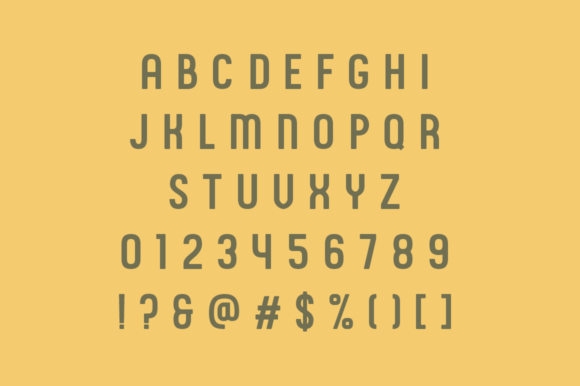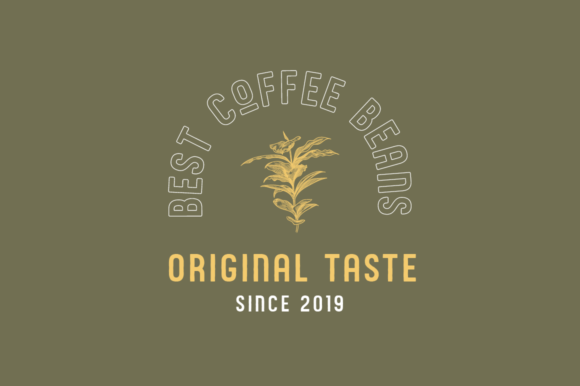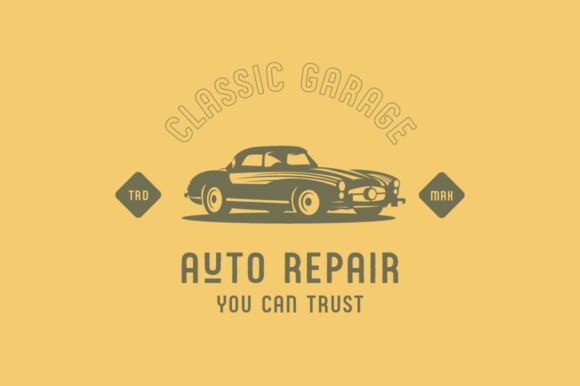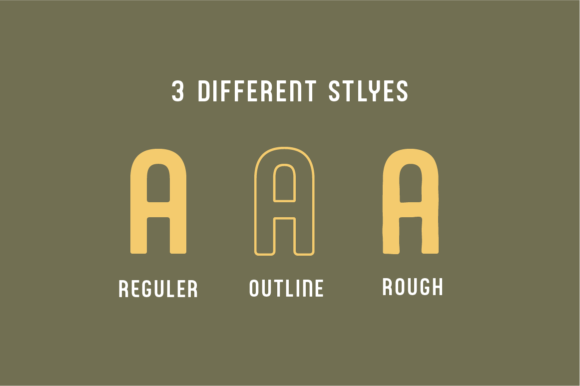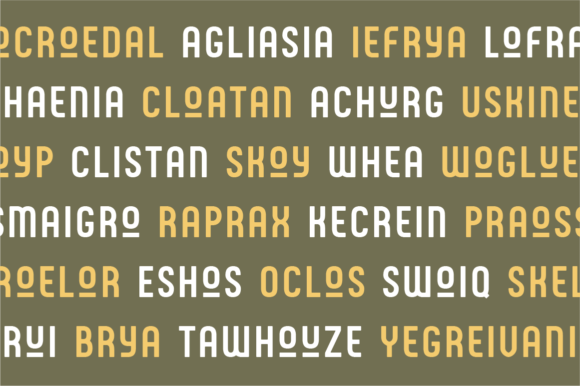
Godiva Font: Elevate Your Designs with a Cool, Bold, and Vintage Flair
Are you on the hunt for a font that adds a touch of sophistication, elegance, and a dash of vintage charm to your designs? Look no further than the Godiva Font. This cool, bold, and vintage-styled display font is making waves in the design community, and for good reason. In this article, we’ll dive into the world of Godiva Font, exploring its unique characteristics, uses, and why it’s becoming a favorite among designers and crafters alike.
The Essence of Godiva Font
Godiva Font is a display font that exudes a sense of luxury, glamour, and nostalgia. Its bold and vintage styling makes it perfect for projects that require a statement piece. Whether you’re working on a branding project, a packaging design, or a marketing campaign, Godiva Font is sure to turn heads. Its unique blend of classic and modern elements creates a distinctive look that’s both eye-catching and memorable.
Key Features of Godiva Font
- Bold and Vintage Styling: Godiva Font boasts a bold and vintage aesthetic that’s reminiscent of classic typography.
- Highly Legible: Despite its bold styling, Godiva Font remains highly legible, making it perfect for use in a variety of design applications.
- Versatile: Godiva Font can be used in a range of design projects, from branding and packaging to advertising and marketing materials.
- Easily Customizable: Godiva Font is easy to customize, allowing designers to tailor it to their specific needs.
Why Designers and Crafters Love Godiva Font
So, why is Godiva Font becoming a favorite among designers and crafters? For starters, its unique blend of bold and vintage styling makes it a standout in any design project. Additionally, its high legibility ensures that it can be used in a variety of applications, from large-scale signage to smaller promotional materials. Perhaps most importantly, Godiva Font is incredibly versatile, making it easy to incorporate into a wide range of design styles.
Using Godiva Font in Your Designs
Godiva Font can be used in a variety of design applications, including:
- Branding and Logo Design: Godiva Font is perfect for creating bold and eye-catching logos that make a statement.
- Packaging Design: Add a touch of vintage glamour to your packaging designs with Godiva Font.
- Advertising and Marketing Materials: Use Godiva Font to create bold and attention-grabbing ads and promotional materials.
- Signage and Display: Godiva Font is perfect for use in large-scale signage and display applications.
Tips for Getting the Most Out of Godiva Font
To get the most out of Godiva Font, here are a few tips to keep in mind:
- Experiment with Different Sizes: Godiva Font looks great in a variety of sizes, from large-scale display applications to smaller promotional materials.
- Pair it with Other Fonts: Godiva Font pairs well with a range of other fonts, making it easy to create visually interesting and dynamic designs.
- Customize it to Fit Your Needs: Don’t be afraid to experiment with different colors, textures, and effects to make Godiva Font truly your own.
In conclusion, Godiva Font is a cool, bold, and vintage-styled display font that’s perfect for designers and crafters looking to add a touch of sophistication and elegance to their designs. With its unique blend of classic and modern elements, high legibility, and versatility, Godiva Font is sure to become a favorite in your design toolkit. So why wait? Add Godiva Font to your projects today and experience the results for yourself!